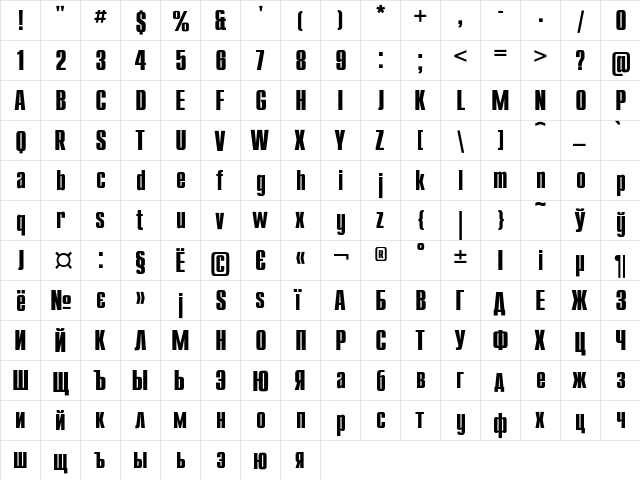
Compact Bold
Design Context for Compact Typeface
Compact takes a measured approach to typography — its balanced proportions and neutral character make it a reliable workhorse for both digital and print work. Its bold stroke weight gives it real presence on the page. Its narrow stance lets it pack a punch even in space-constrained designs.